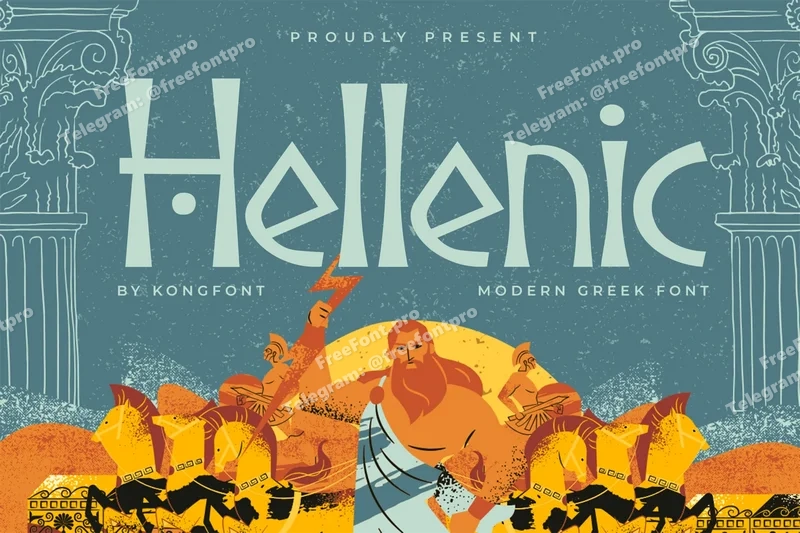
Hellenic – Modern Greek Font
Introducing Hellenic, a modern Greek-style font that elegantly blends ancient aesthetics with a contemporary flair. Inspired by the timeless forms of classical Greek lettering, Hellenic brings a sense of heritage and sophistication to any design project while maintaining a clean, modern edge.
This typeface is perfect for branding, editorial layouts, posters, packaging, and logo designs that aim to evoke culture, tradition, and refinement. With its balanced proportions and distinct character shapes, Hellenic offers exceptional readability and visual harmony—ideal for both headlines and body text.
Whether you’re creating a luxury brand identity, designing a themed event, or producing editorial graphics, Hellenic delivers a polished, distinctive look that bridges the gap between the ancient and the modern.